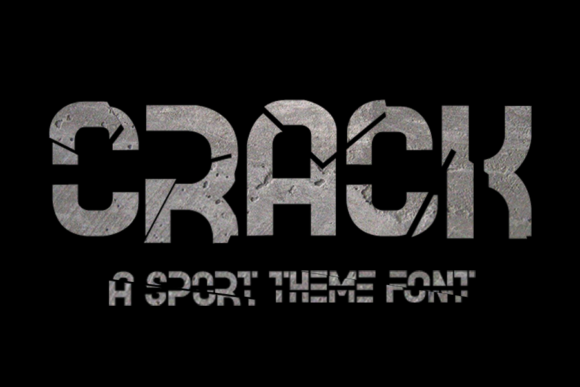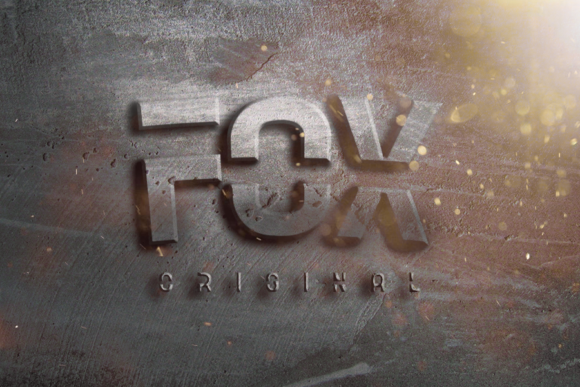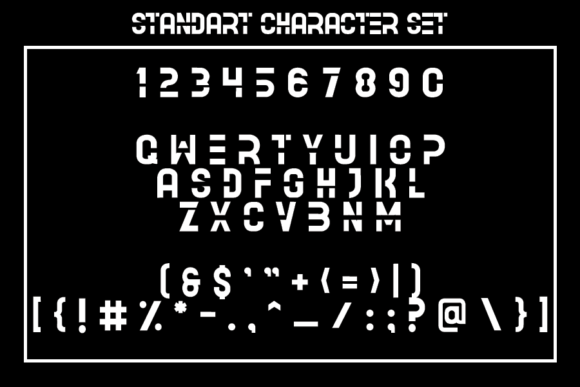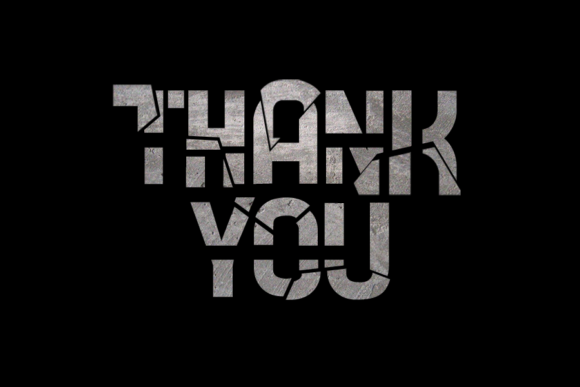
Introducing Broken Font: The Bold and Edgy Display Font You Need
Are you tired of using the same old fonts in your designs? Do you want to add a touch of uniqueness and boldness to your creations? Look no further than Broken Font, a cool and interesting display font that’s expertly designed to take your work to the next level. In this article, we’ll dive into the features and benefits of Broken Font, and explore how it can help you elevate your designs and bring your creative ideas to life.
What is Broken Font?
Broken Font is a bold and edgy display font that’s perfect for designers and crafters looking to add a touch of personality to their work. With its unique and distressed design, this font is sure to grab attention and make your creations stand out from the crowd. Whether you’re working on a logo, poster, or social media graphic, Broken Font is the perfect choice for anyone looking to add a bit of attitude and swagger to their design.
Key Features of Broken Font
- Unique and Distressed Design: Broken Font features a one-of-a-kind distressed design that’s perfect for adding a touch of grit and attitude to your work.
- Bold and Edgy: With its bold and edgy lettering, Broken Font is sure to make a statement and grab attention.
- Highly Versatile: Whether you’re working on a logo, poster, or social media graphic, Broken Font is highly versatile and can be used in a variety of design applications.
- Easily Readable: Despite its bold and edgy design, Broken Font is still highly readable, making it perfect for use in a variety of design applications.
Benefits of Using Broken Font
So why should you choose Broken Font for your next design project? Here are just a few benefits of using this amazing display font:
- Adds a Touch of Personality: With its unique and distressed design, Broken Font adds a touch of personality and attitude to your work, setting it apart from the crowd.
- Increases Readability: Despite its bold and edgy design, Broken Font is still highly readable, making it perfect for use in a variety of design applications.
- Perfect for Creative Projects: Whether you’re working on a logo, poster, or social media graphic, Broken Font is perfect for creative projects that require a bit of attitude and swagger.
How to Use Broken Font in Your Designs
Using Broken Font in your designs is easy. Here are a few tips to get you started:
- Pair it with a Simple Background: To really make Broken Font pop, try pairing it with a simple background that won’t compete with the bold and edgy lettering.
- Experiment with Different Colors: Broken Font looks great in a variety of colors, so don’t be afraid to experiment and find the perfect hue for your design.
- Use it for Headings and Titles: Broken Font is perfect for use in headings and titles, where its bold and edgy design can really make an impact.
In conclusion, Broken Font is a cool and interesting display font that’s expertly designed to take your creative ideas to the next level. With its unique and distressed design, bold and edgy lettering, and high versatility, this font is perfect for designers and crafters looking to add a touch of personality and attitude to their work. Whether you’re working on a logo, poster, or social media graphic, Broken Font is the perfect choice for anyone looking to make a statement and bring their creative ideas to life.